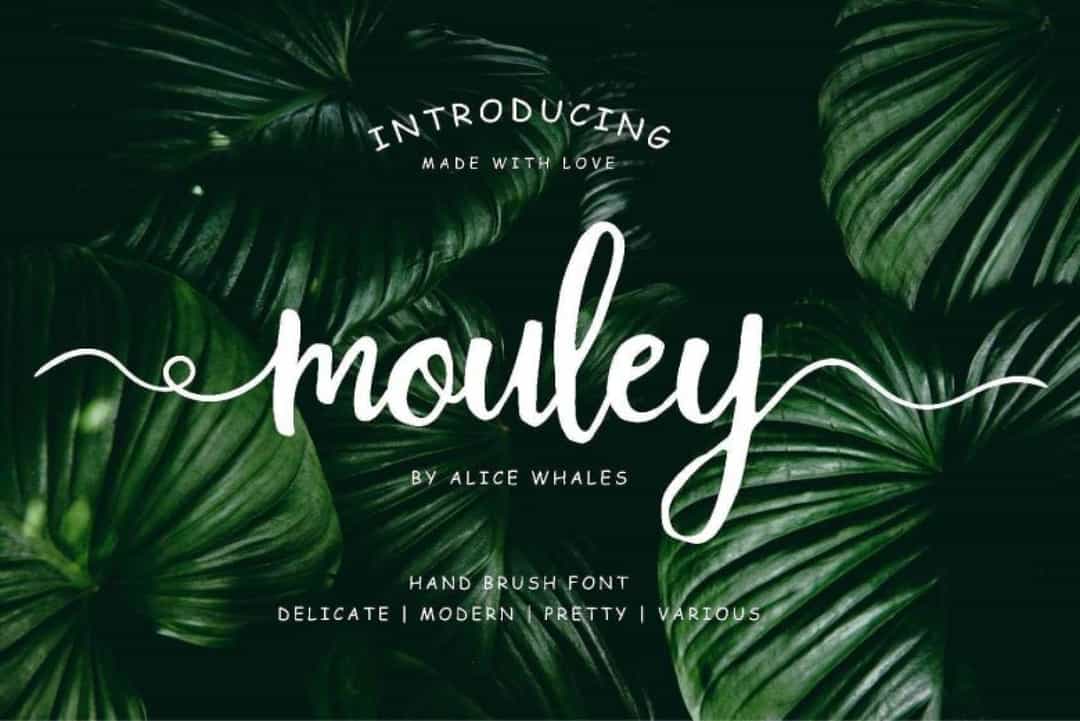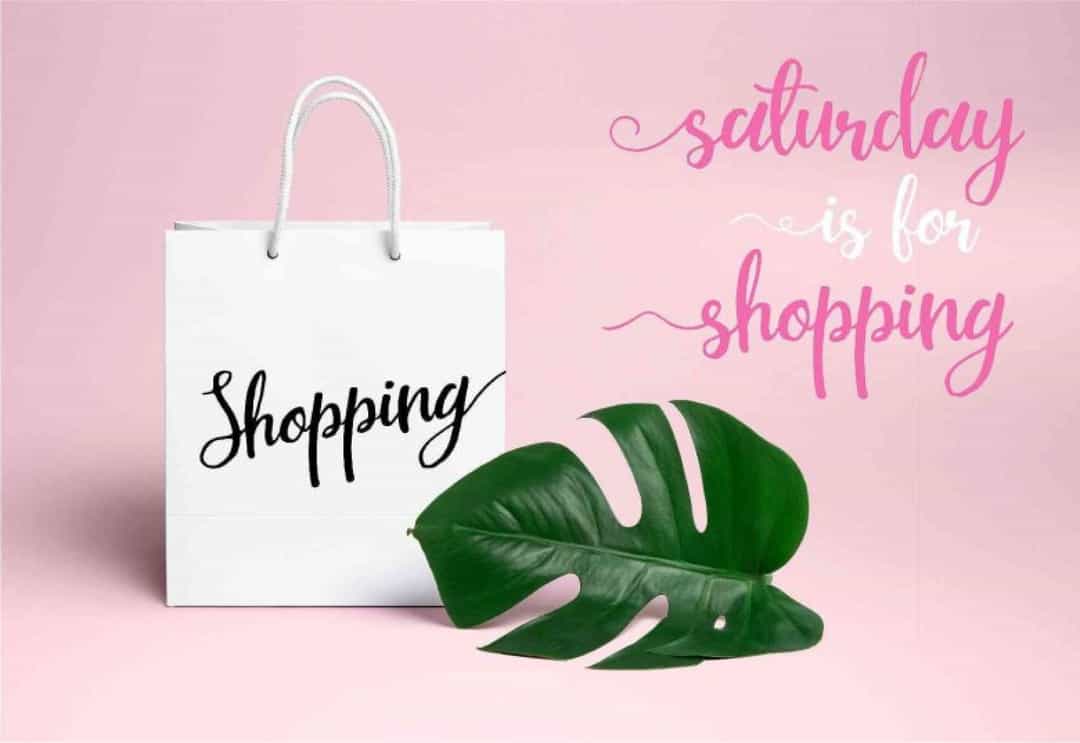
Presenting the new fashionable typefaces Mouley Script with the kind of modern hand scratches, I hope you will find an interest in this font, if you need to use for your work this font can be easily used and it is very simple because there a lot of options in it including a complete set of letters both lower and uppercase, different punctuations, numbers, and multilingual support. It also has several ligatures and alternate style Stylistic Sets for those of you who have the software that can decode OpenType and use it (Photoshop / Illustrator / InDesign).